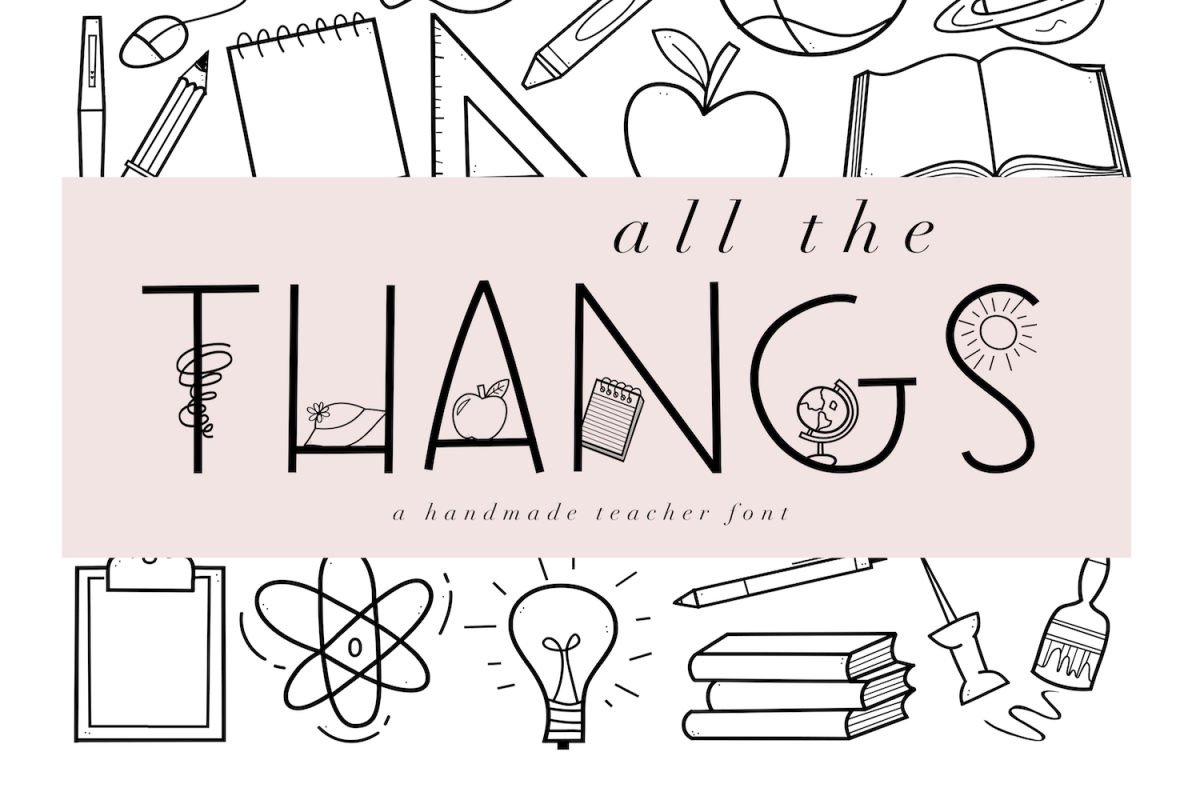
All The Thangs - A Handmade Letter & Doodle Font - Teaching
All The Thangs is a handmade letter+doodle font.
This font is especially perfect for teachers. parents and school supply artists.
This font does include accent characters.